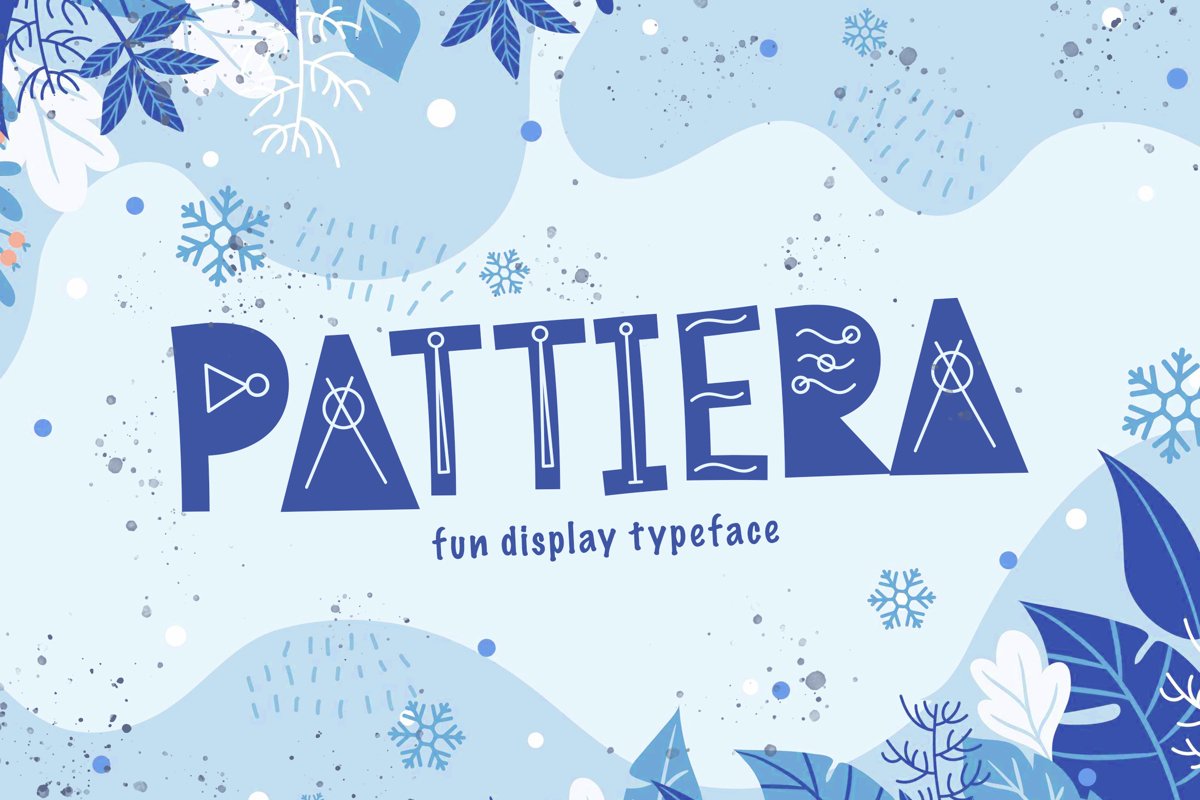
Pattiera is a playful display typeface. Perfect for display, mockup, quotes, posters, logo, logotype, branding, business card, crafting needs, print, t-shirt, mug, merchandise, packaging, and many more.